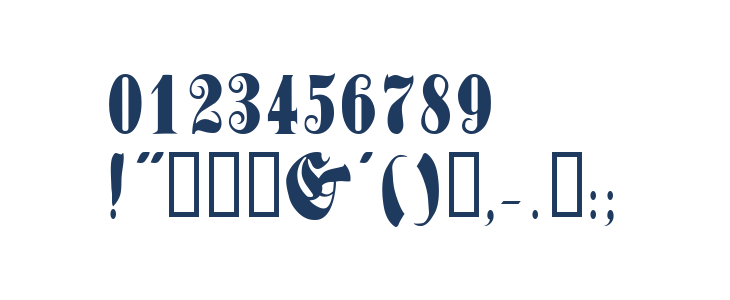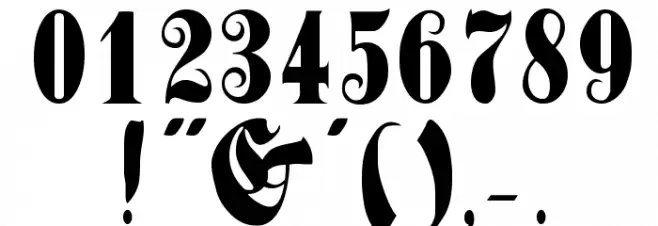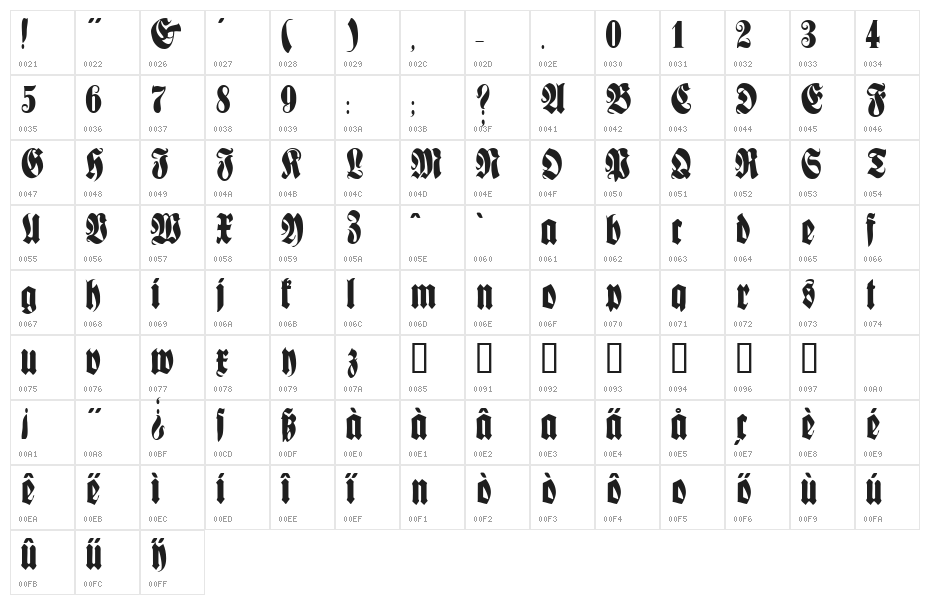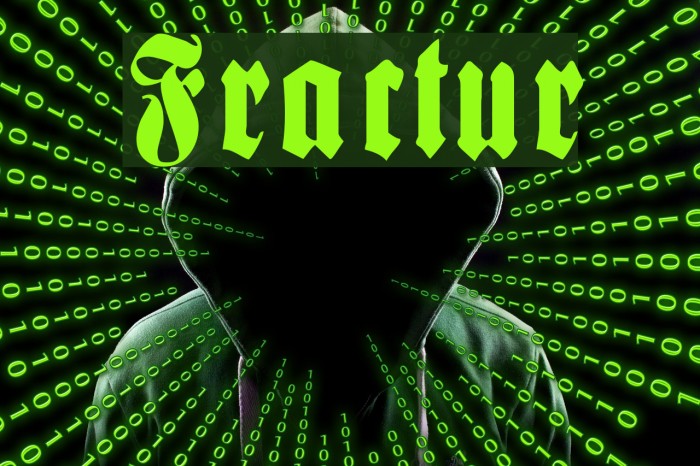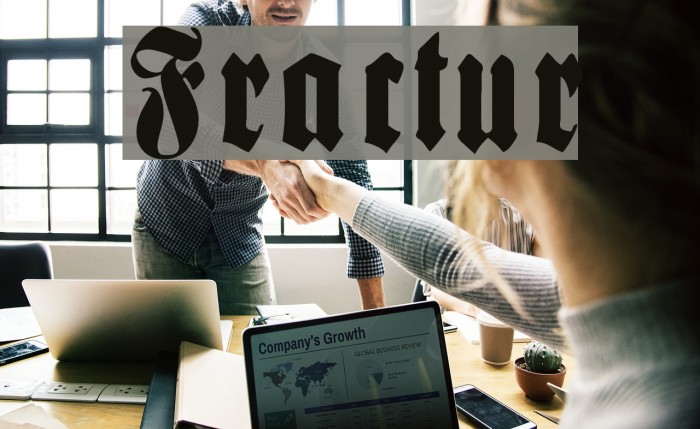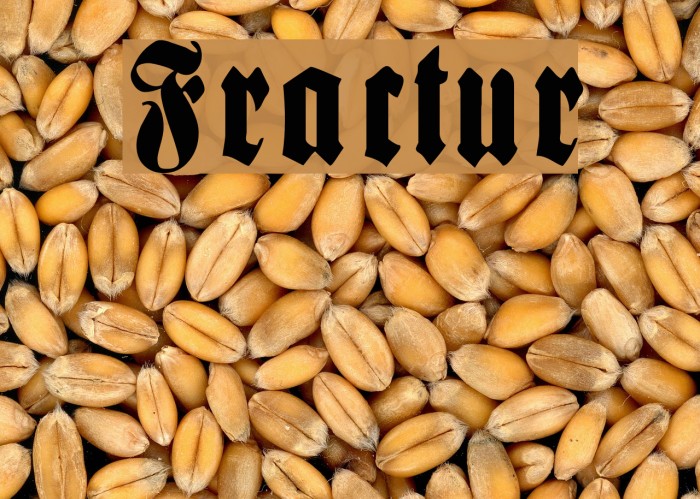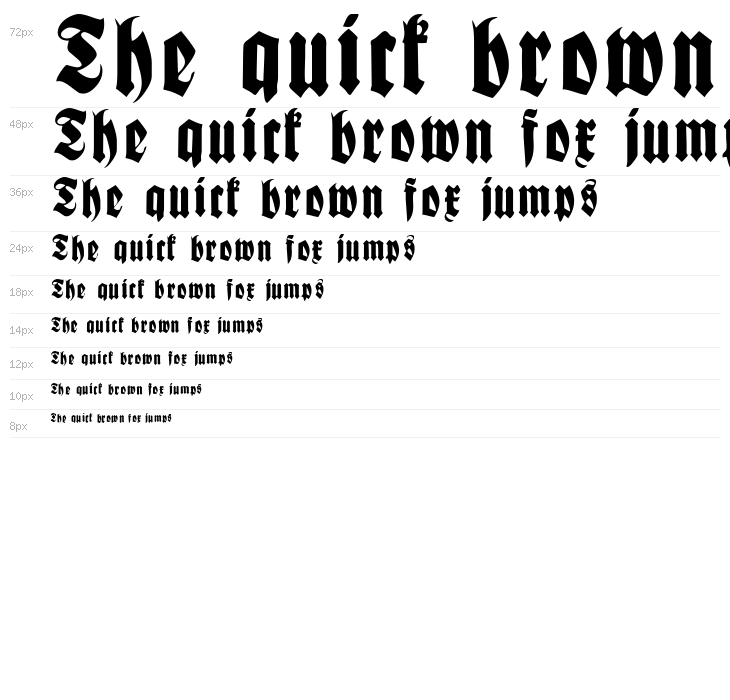
Fractur Font
Fractur Description
This font features a traditional blackletter style, characterized by its ornate and intricate design. The letters are bold and angular, with sharp, pointed edges and elaborate flourishes. The uppercase letters are particularly decorative, with sweeping curves and dramatic strokes that convey a sense of historical elegance. The lowercase letters maintain the same level of detail, ensuring consistency throughout the typeface. Numbers and special characters are designed to match the overall aesthetic, with similar boldness and complexity. This font is ideal for projects that require a touch of medieval or gothic flair.
| Proposed Projects | Suitable for historical documents, medieval-themed designs, book covers, and decorative posters. |